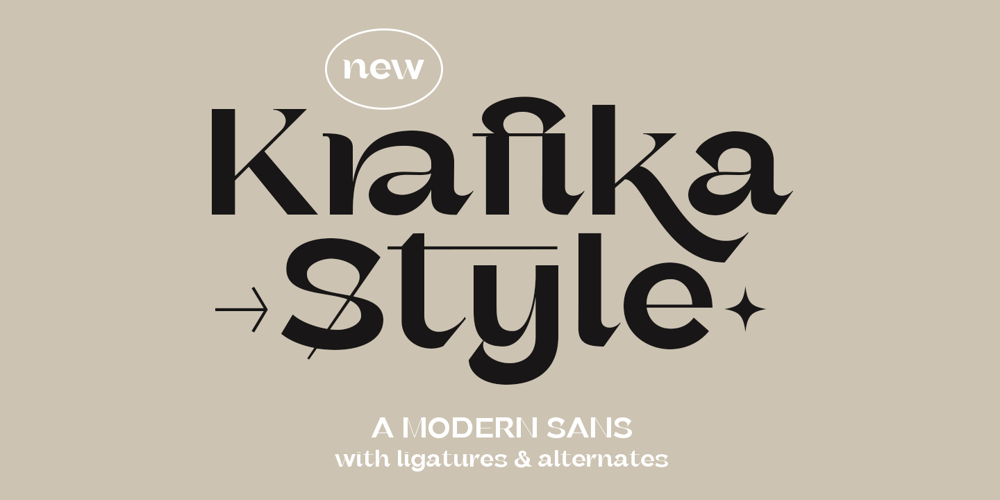
Krafika
Krafika font
Krafika Font Family was designed by Sarid Ezra and published by Sarid Ezra. Krafika contains 1 styles and family package options. Introducing, Krafika – a modern sans with ligatures and alternates!Krafika is a modern sans with a bunch of ligatures and alternates that will make your poster, cover or logo even more stunning and stand out! You can use this font as a stand alone font for any project such as logo, headline or branding. Also comes with the right arrow and star! This fonts support Multi Language.